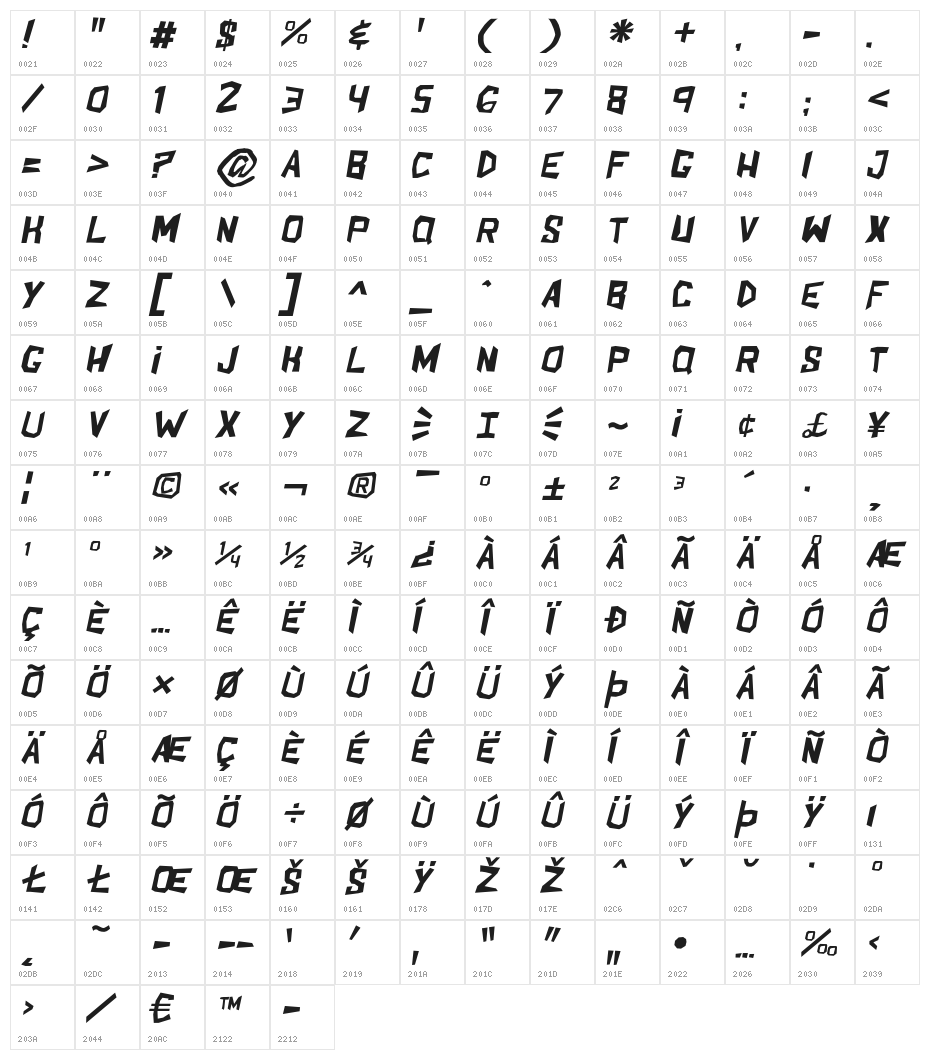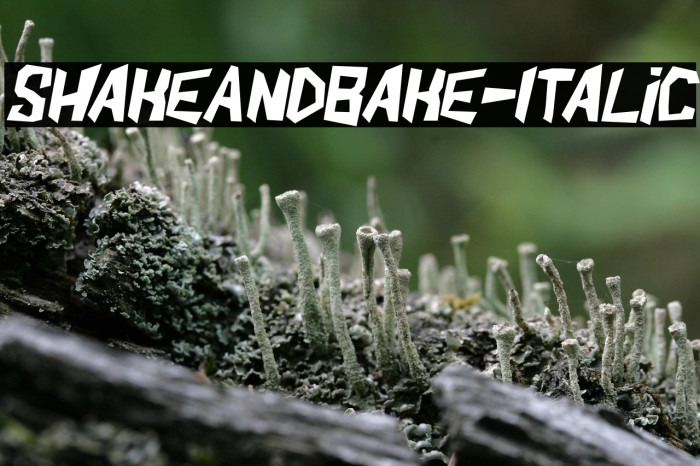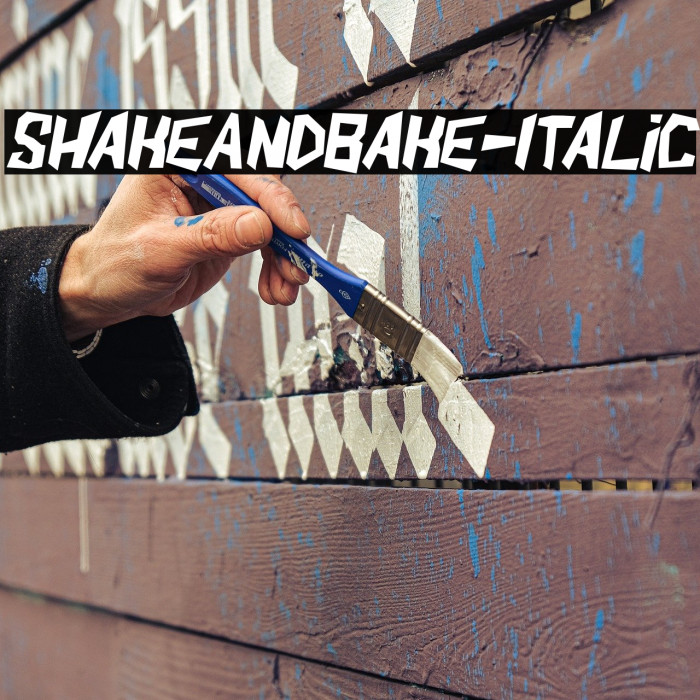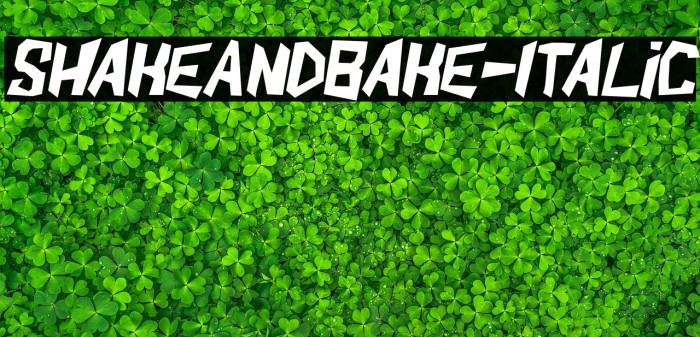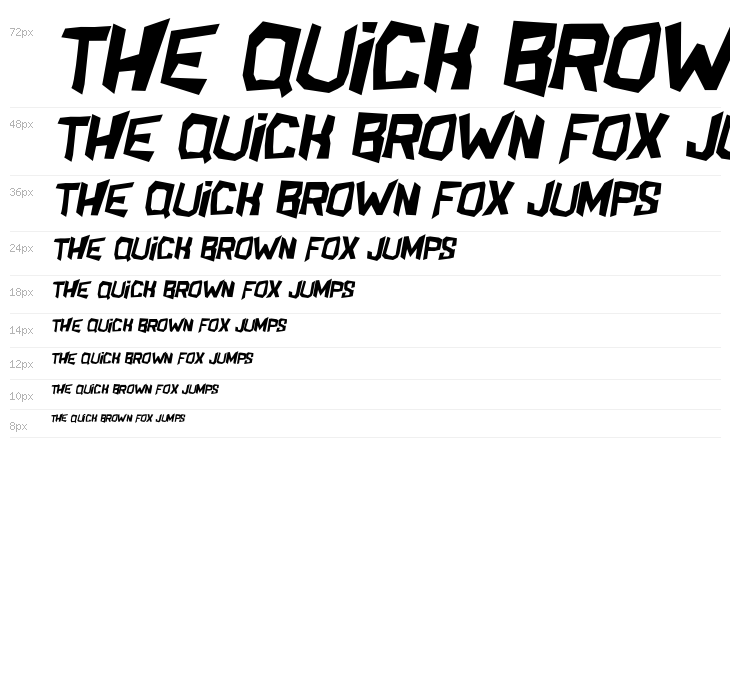
ShakeAndBake-Italic Font
ShakeAndBake-Italic Description
This font features a bold and dynamic design with a distinct italic slant, giving it a sense of motion and energy. The characters are angular and geometric, with sharp edges and a slightly condensed appearance. The uppercase and lowercase letters maintain a consistent style, while the numerals and special characters complement the overall aesthetic. This font's unique style makes it stand out, making it ideal for attention-grabbing designs.
| Proposed Projects | Ideal for sports branding, dynamic posters, edgy advertisements, and modern graphic designs. |